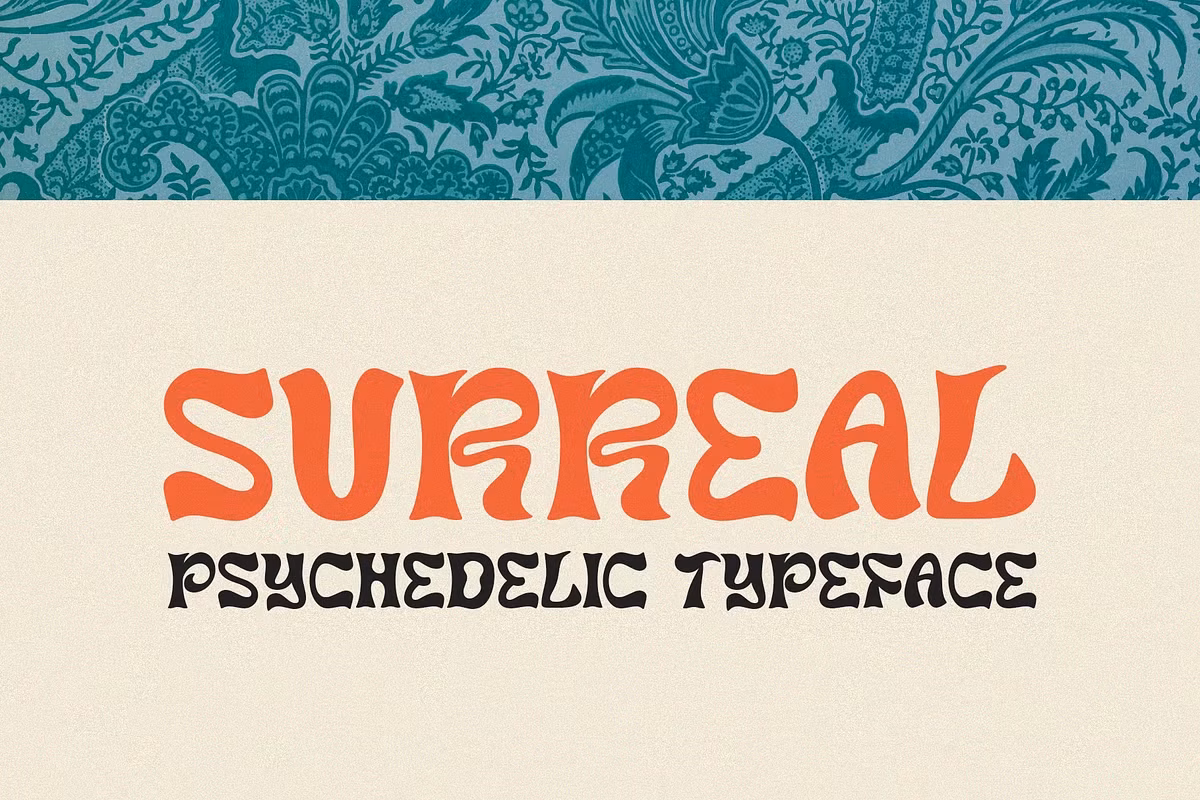
Surreal 1960s Psychedelic Typeface Free Download is a vibrant, mind-bending font that captures the free-spirited essence of the psychedelic era. With its warped shapes, groovy curves, and swirling letterforms, Surreal is perfect for retro posters, music festival branding, album covers, t-shirts, and creative packaging.
This typeface is a visual trip—bringing bold personality and nostalgic flair to every design. Whether you're channeling vintage rock vibes or crafting bold, artistic layouts, Surreal delivers eye-catching impact with a dose of trippy fun.
Designed for creatives who dare to stand out, Surreal is a must-have for anyone embracing retro revival or artistic experimentation.